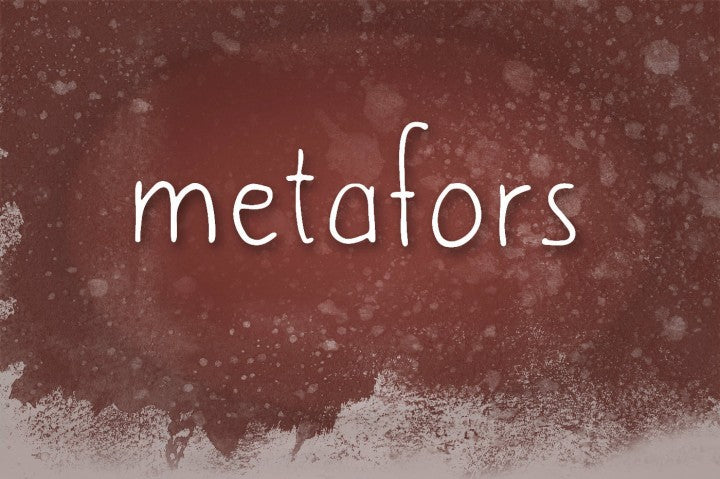
Free Metafors font
Today we're glad to feature this free metafors font. The Hungry JPEG has created this amazing and beautiful free typeface. Showcase your designs like a graphic design pro by adding a new touch with this fancy font.